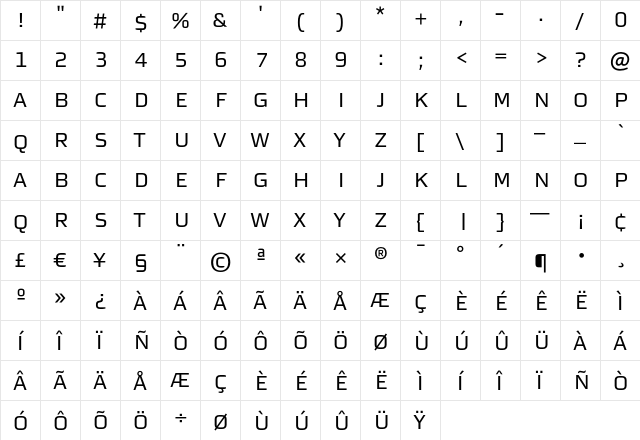
MorganSnCaps Regular
Design Context for MorganSnCaps Typeface
MorganSnCaps is a composed and adaptable typeface that performs quietly and consistently across a wide range of design contexts.